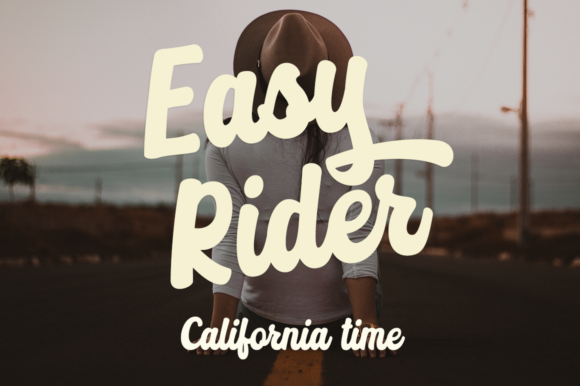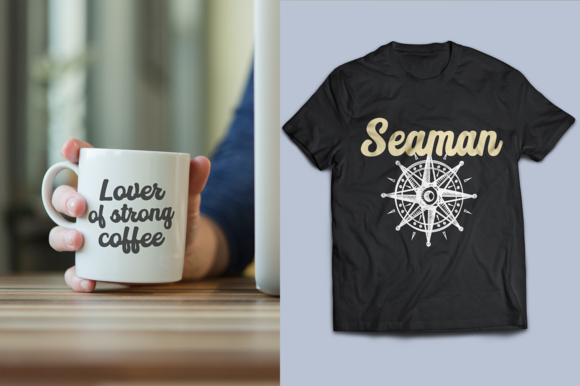
Sheraton Font
db-ku.com - Script & Handwritten -- The Sheraton is a new, fresh, handmade calligraphy font. It has bold letters with a good readability.